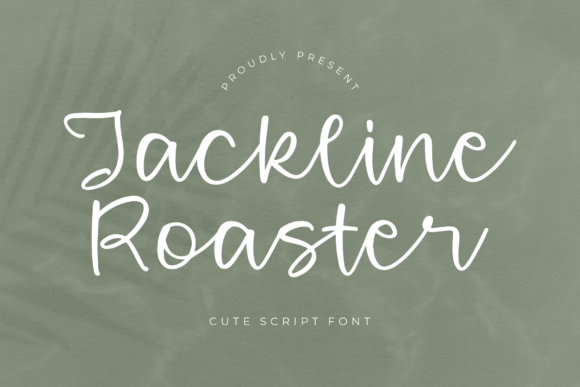
Embrace the allure of Jackline Roaster, a script font that dances across the digital canvas with grace and elegance. Inspired by the art of calligraphy, this font weaves a tale of romance and sophistication, adding a touch of enchantment to every project it graces.
Born from the creative mind of Letterfabric, Jackline Roaster is not just a font; it's an experience. Its delicate strokes and flowing curves evoke a sense of nostalgia, reminiscent of handwritten love letters and vintage postcards. Each character carries a unique personality, adding depth and charm to your designs.
Whether you're crafting website banners that demand attention or creating captivating social media graphics, Jackline Roaster is your perfect companion. Its versatility knows no bounds, extending from wedding invitations and greeting cards to eye-catching headlines and logos. Unleash your creativity and let Jackline Roaster transform your words into visual masterpieces.
With Jackline Roaster, your designs will radiate warmth and charm, capturing the hearts of your audience. Its ability to evoke emotions and create lasting impressions makes it the ideal choice for businesses and individuals seeking to make a statement.
Don't settle for ordinary fonts that blend into the background. Choose Jackline Roaster and embark on a journey of visual storytelling. Let your designs speak volumes, conveying messages of love, joy, and heartfelt connections.